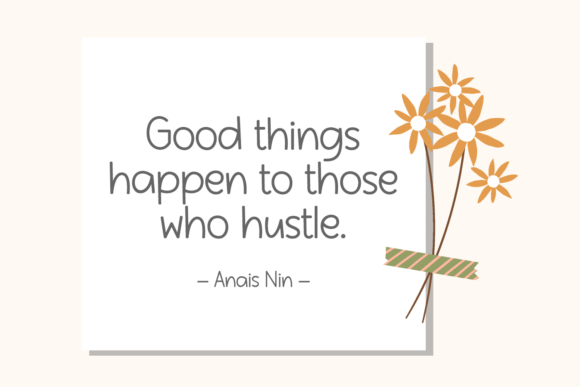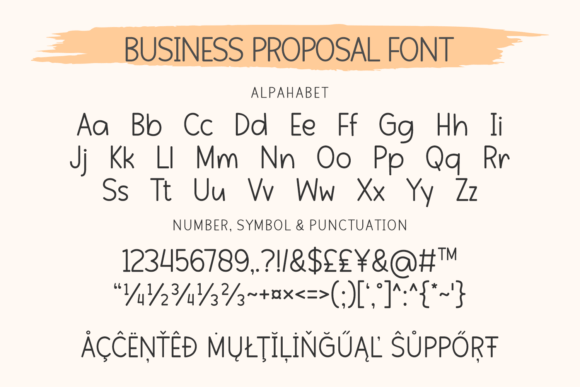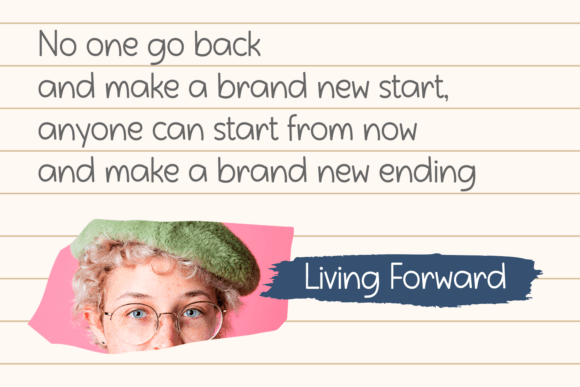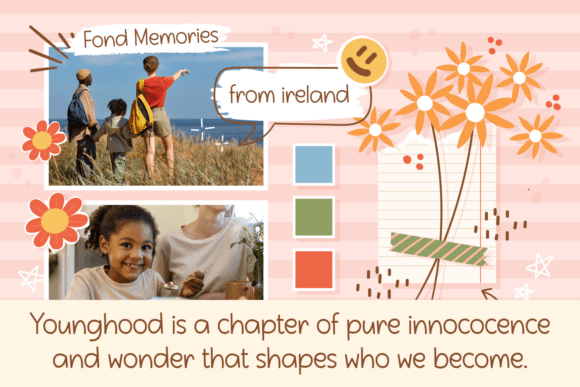
The Business Proposal Font: A Modern, Versatile Choice for Creative Projects
I still remember the time I was working on a branding project for a trendy new coffee shop. My client wanted a font that was modern, yet approachable; professional, yet had a personal touch. After hours of scouring through font libraries, I stumbled upon the Business Proposal font. It was love at first sight! ✨ The clean, minimalist design and smooth, rounded strokes instantly won me over. In this article, I’ll share my experience with the Business Proposal font, its features, and how to make the most of it in your designs.
- ✅ Clean simplicity: The Business Proposal font boasts a sleek, modern design that’s perfect for branding, presentations, and social media graphics.
- ✅ Excellent readability: Despite its handwritten style, the font remains highly legible, making it suitable for both professional and creative projects.
- ✅ Multilingual support: The font includes support for numbers, punctuation, and multilingual characters, ensuring your designs look great regardless of the language.
- ✅ Versatility: Use it for logos, packaging, editorial layouts, or any project that requires a modern, approachable feel.
While the Business Proposal font is excellent, there are a few minor considerations to keep in mind: ⚠️
- 🤔 Limited contrast: The font’s clean design can sometimes make it difficult to distinguish between similar letters or words, especially in low-contrast color schemes.
- 🤔 Not ideal for body text: While readable, the font’s handwritten style may not be the best choice for lengthy body text. It’s better suited for headings, titles, or short paragraphs.
The Story Behind Business Proposal
The Business Proposal font was designed with the modern creative professional in mind. Its creator aimed to craft a font that was both clean and approachable, perfect for projects that require a touch of personality. 💡
The design process involved experimenting with different letterforms, stroke styles, and typography features to create a unique, yet versatile font. The result is a font that feels both modern and elegant, making it suitable for a wide range of applications.
| Font Name | Business Proposal Font |
| Author | Jasa (7NTypes) |
Q: What type of projects is the Business Proposal font best suited for?
A: The Business Proposal font is ideal for branding, presentations, logos, social media graphics, packaging, and editorial layouts. Its versatility makes it suitable for both professional and creative projects.
Q: Does the Business Proposal font support multilingual characters?
A: Yes, the Business Proposal font includes support for multilingual characters, making it a great choice for projects that require international language support.
Q: Can I use the Business Proposal font for body text?
A: While the font is readable, it’s better suited for headings, titles, or short paragraphs. For lengthy body text, consider using a serif font or a dedicated body text font.